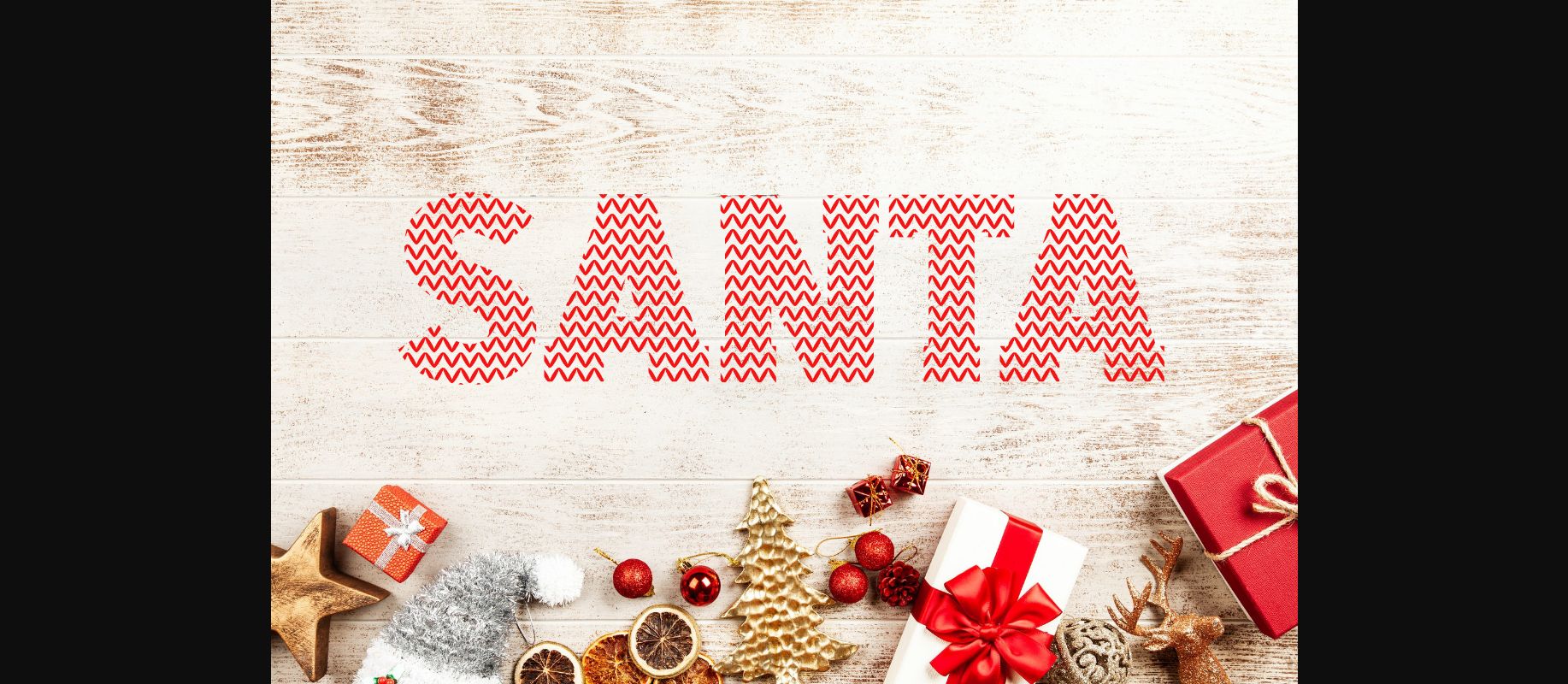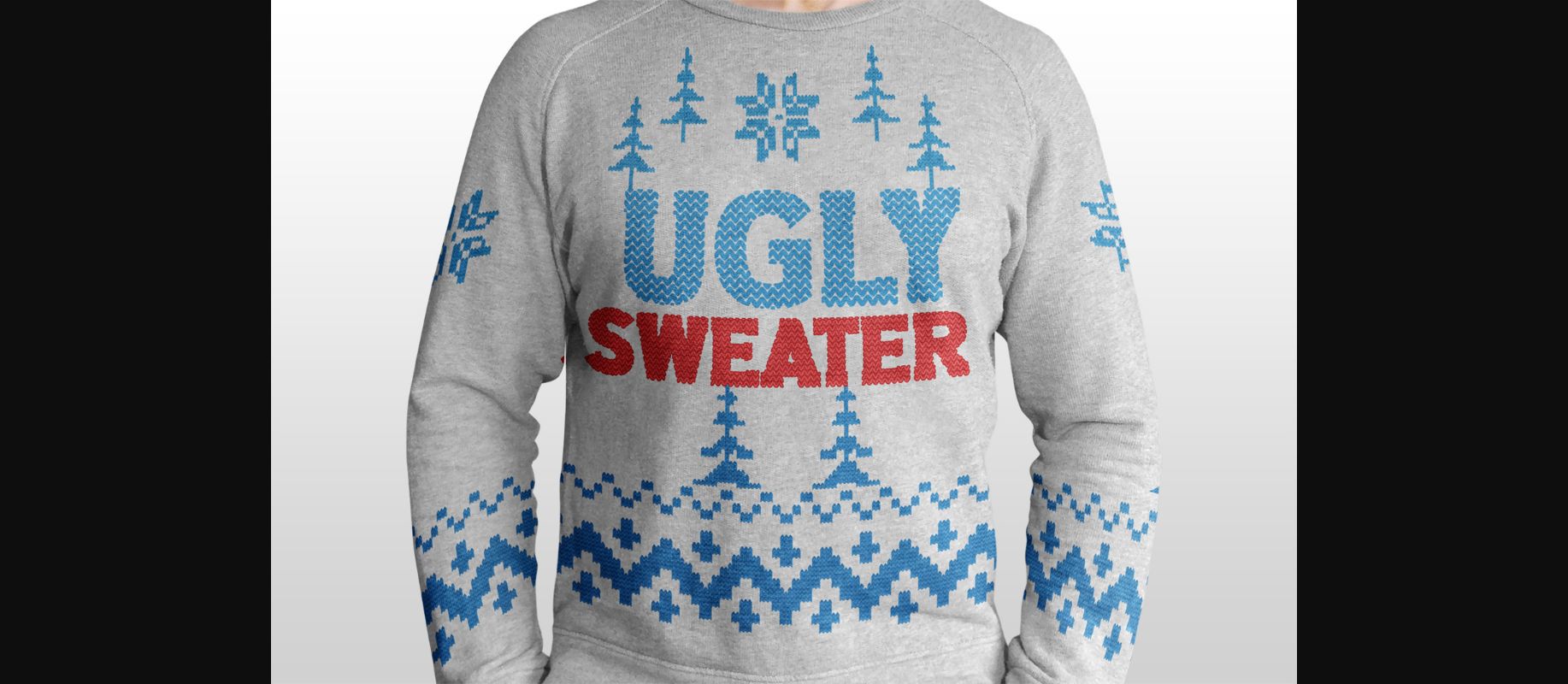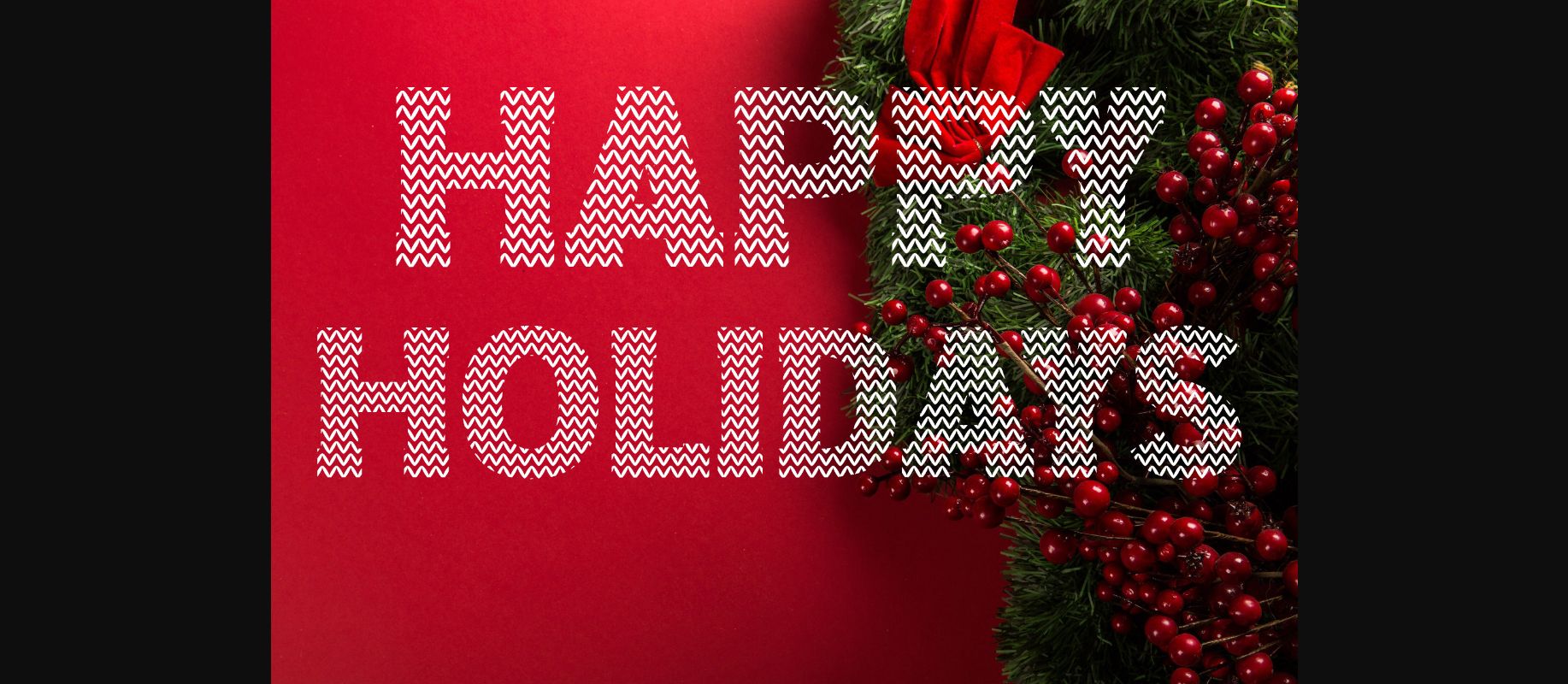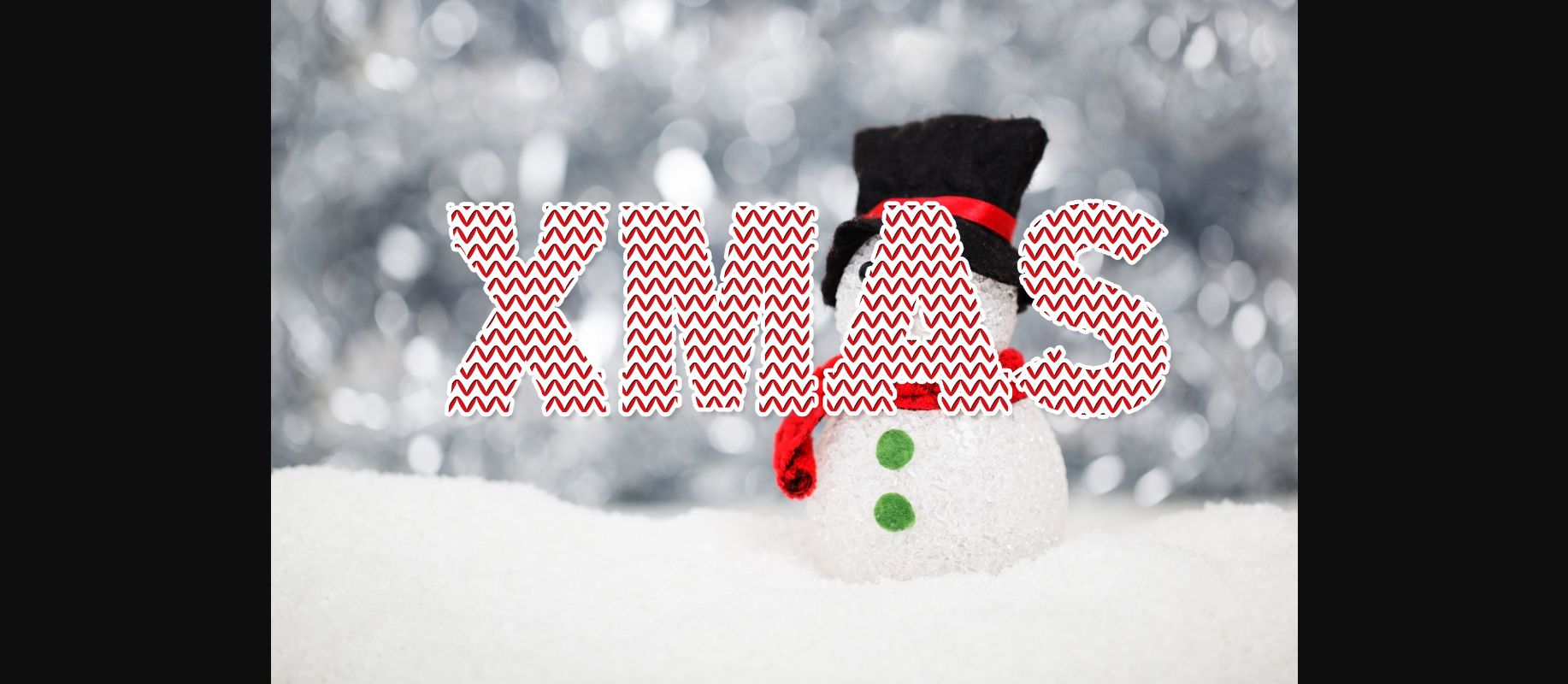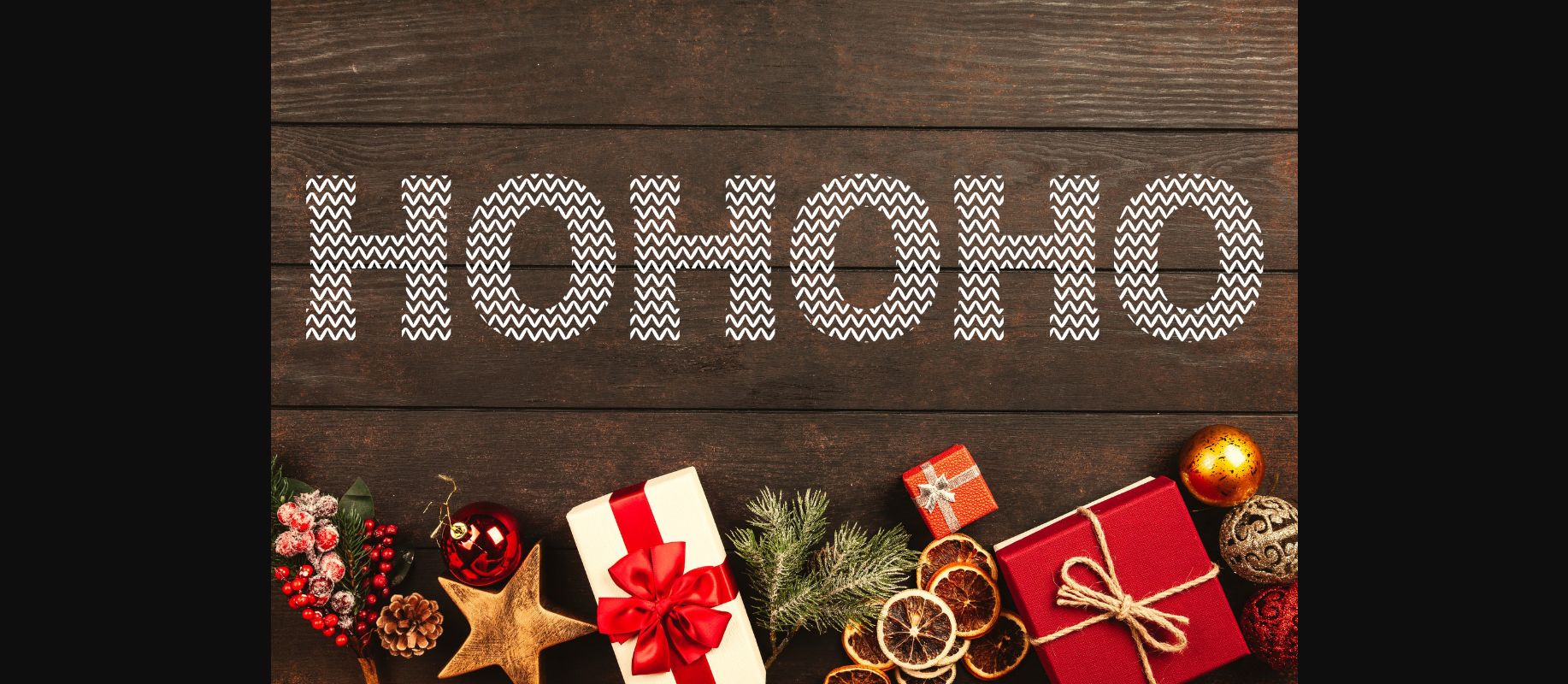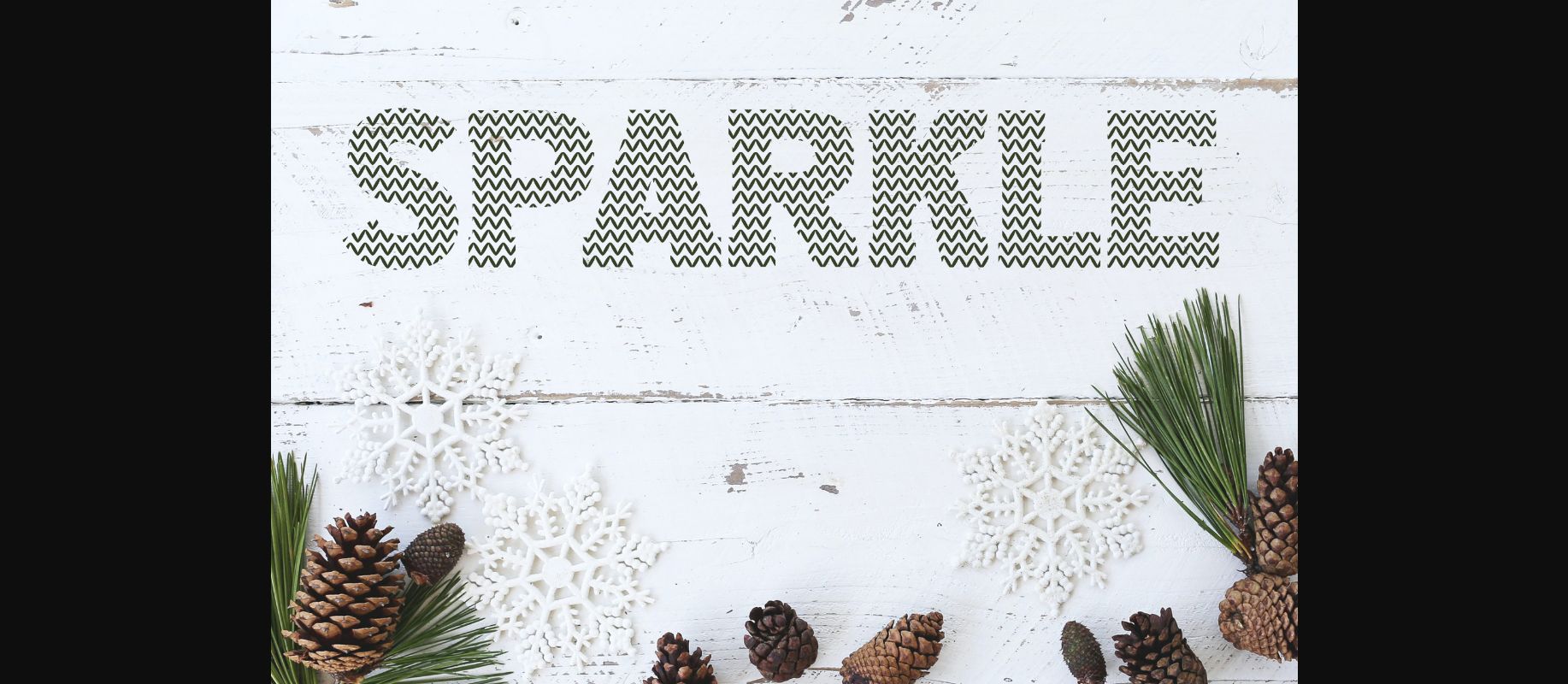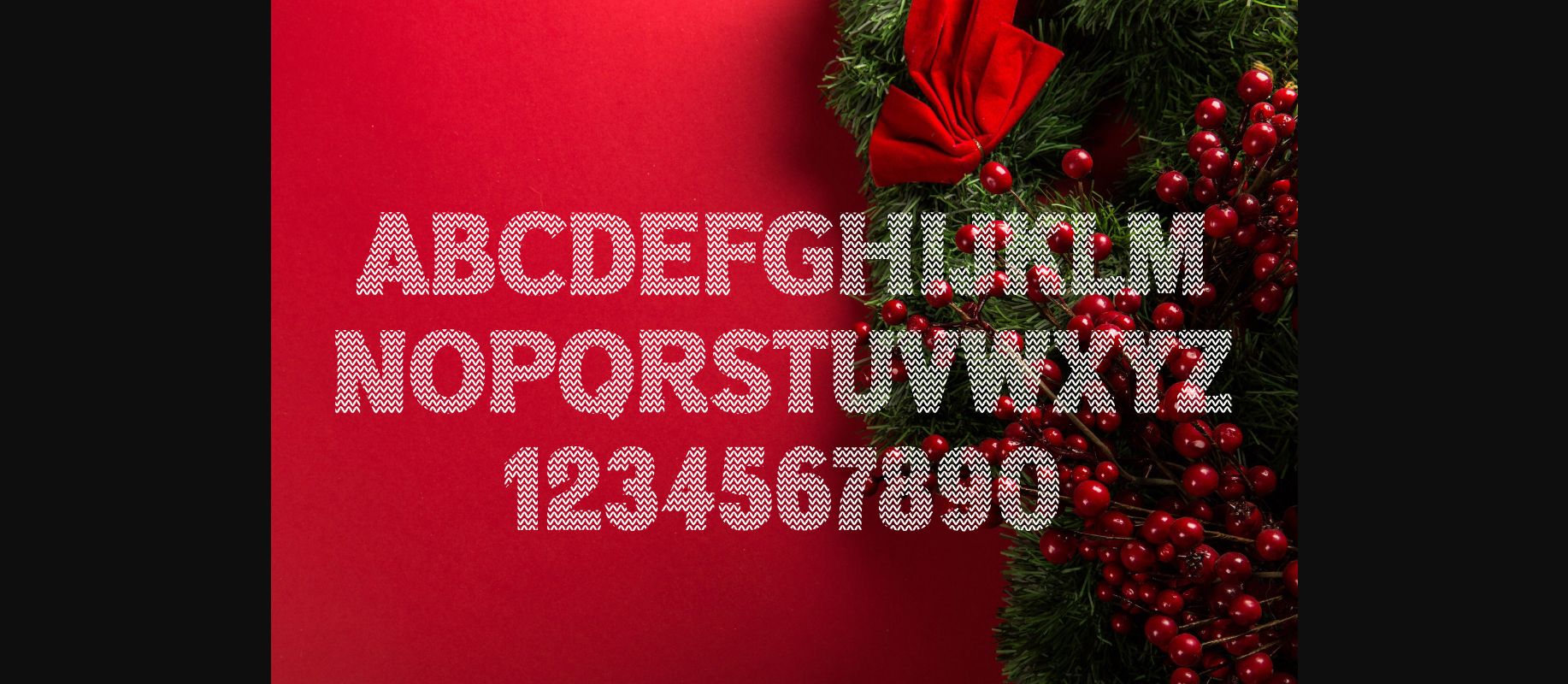
Santa Ugly Sweater Font
About Santa Ugly Sweater Font
Santa Ugly Sweater is a cute Christmas knitted font. Evoke the magic of Christmas using your worm ugly sweater. Add it to your holiday designs and make them come alive